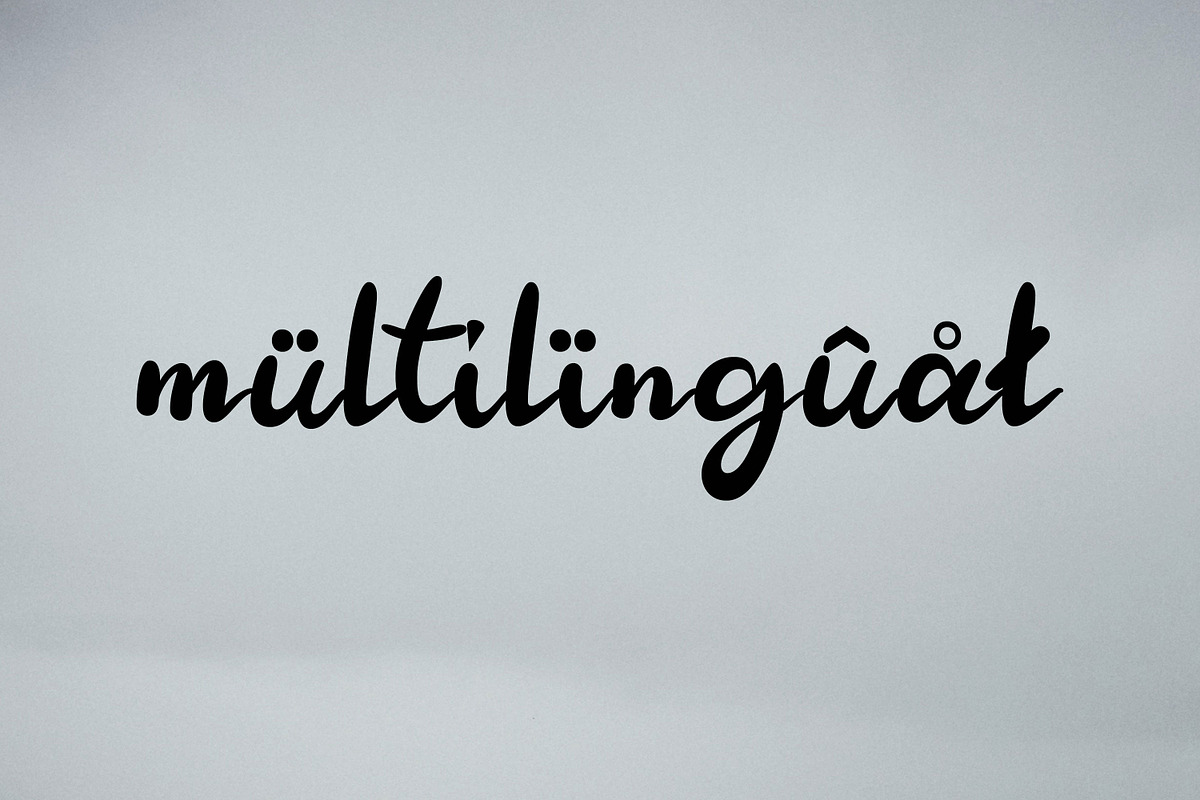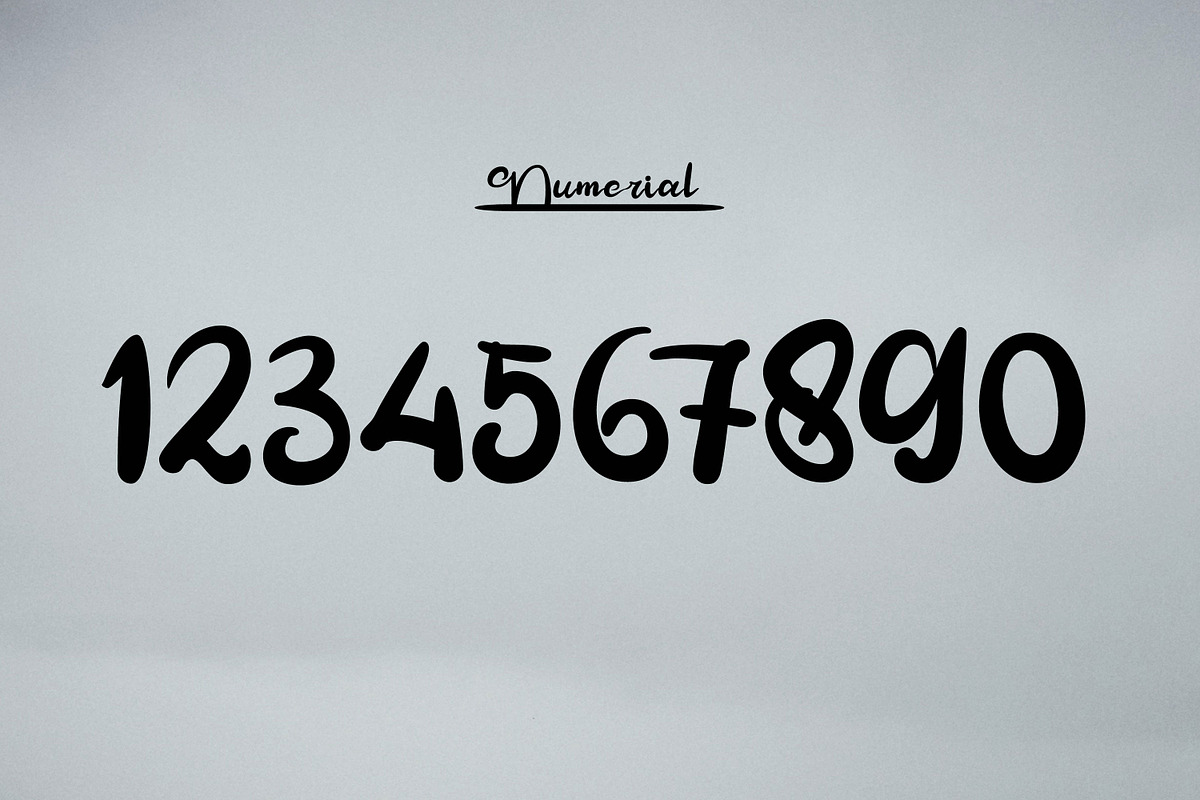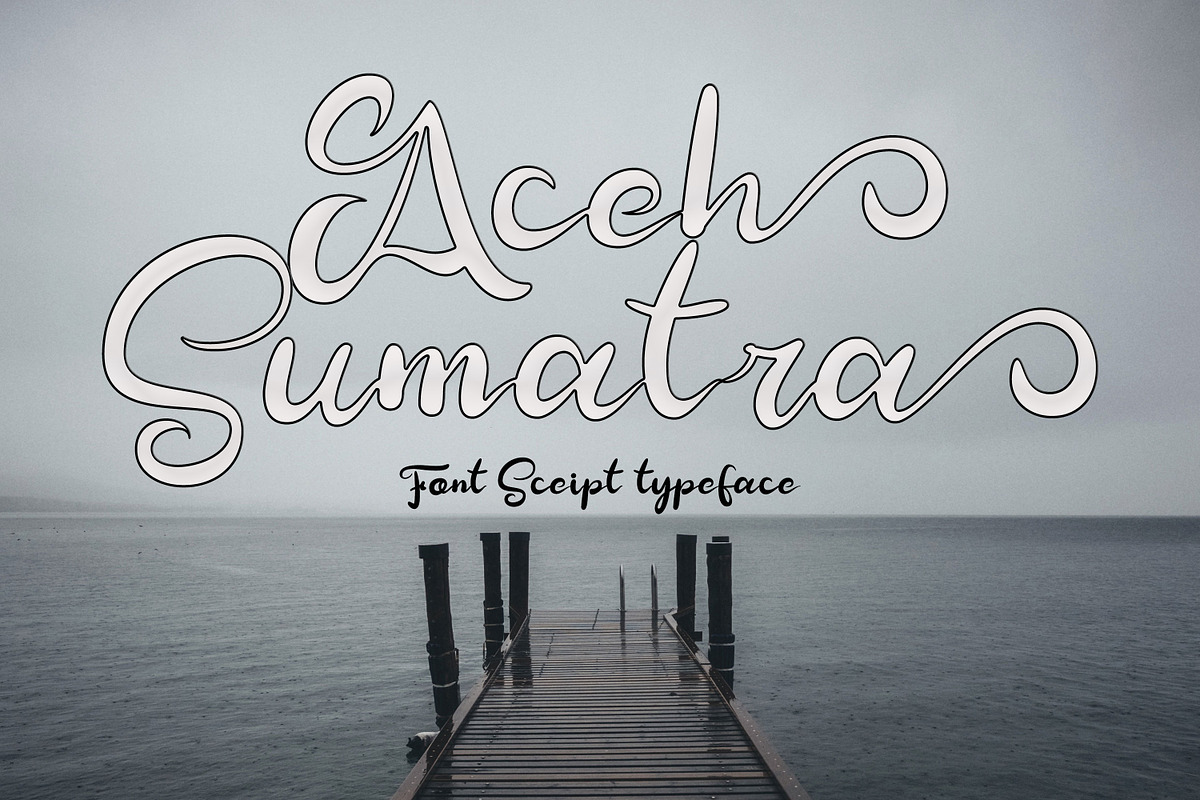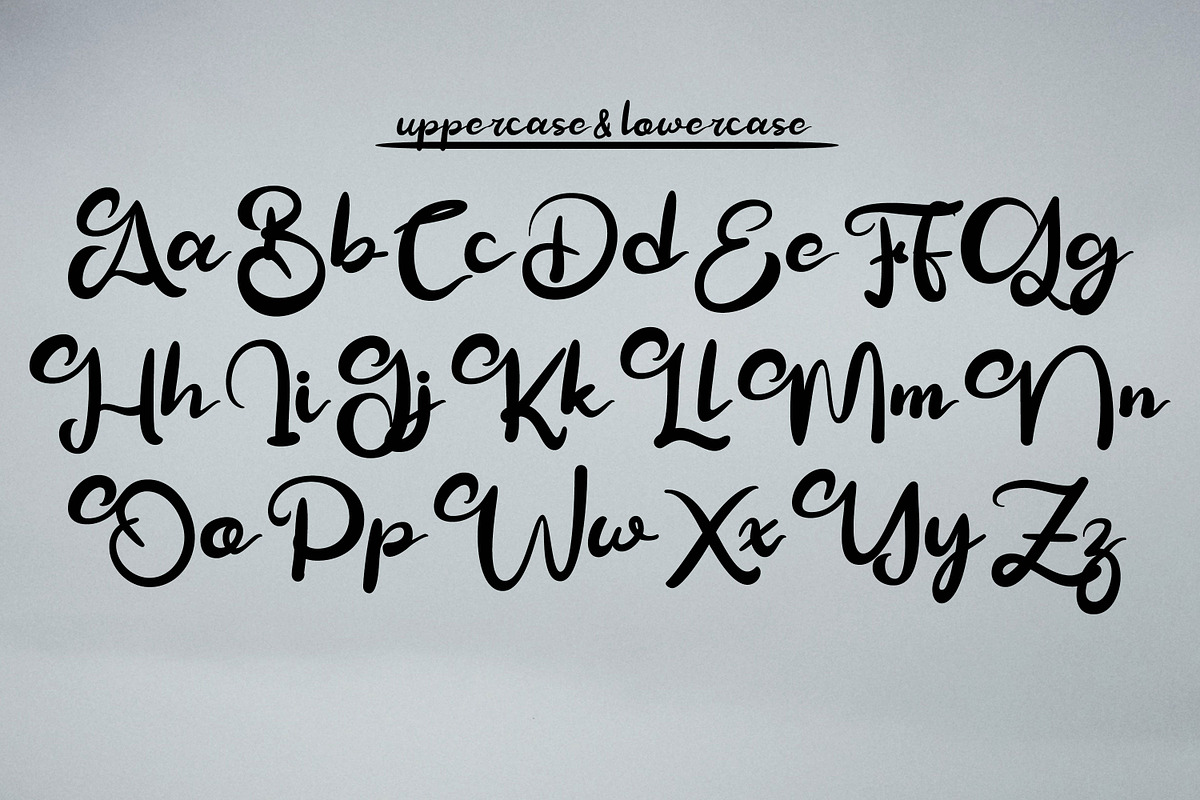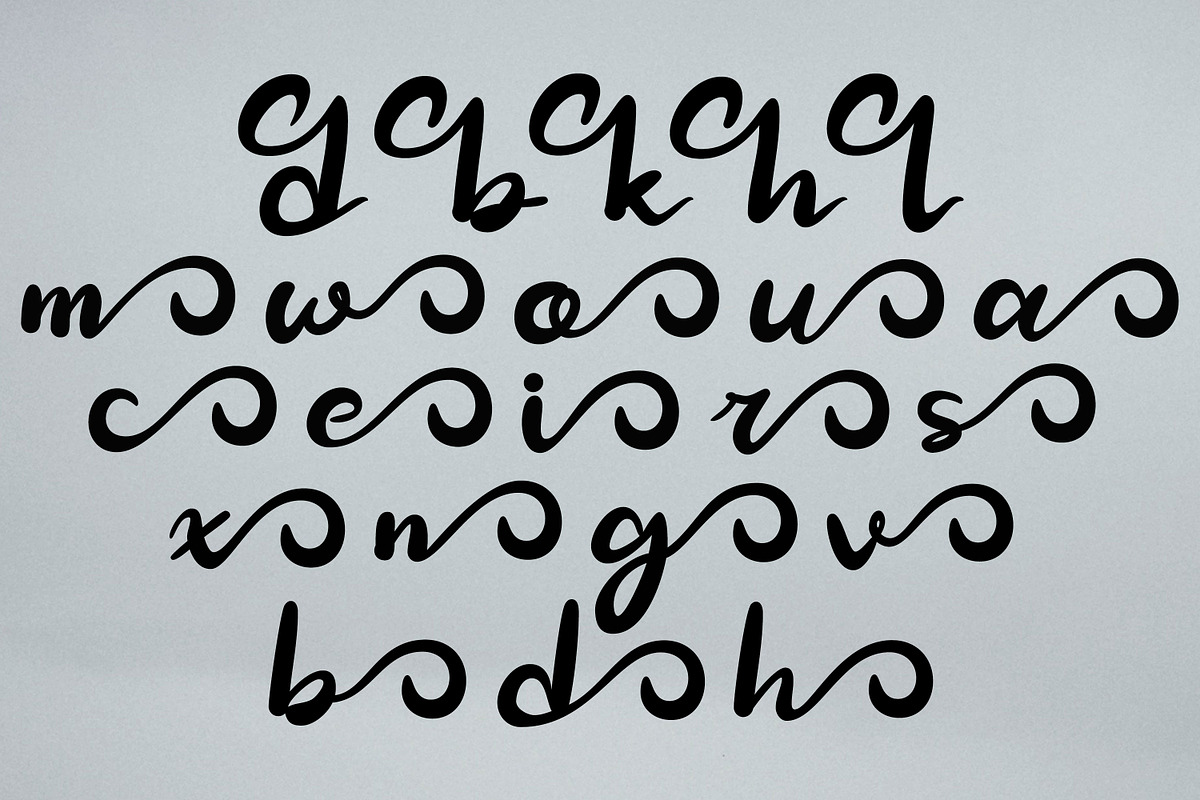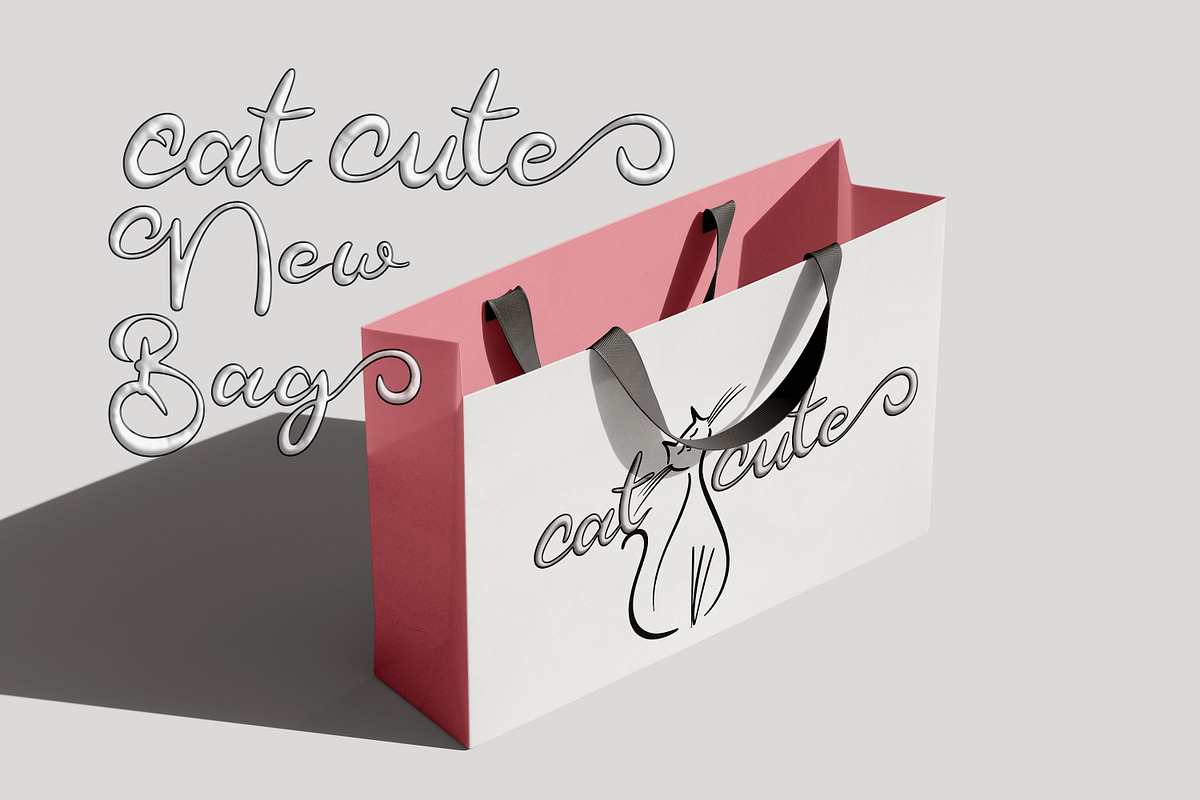
Aceh Sumatra
Aceh Sumatra is a beautiful and eye-catching font designed with a soft, unique touch. Its distinctive strokes give it a special character, making it meaningful and versatile for future use. With various characters, it’s perfect for design projects, crafts, and other creative works.